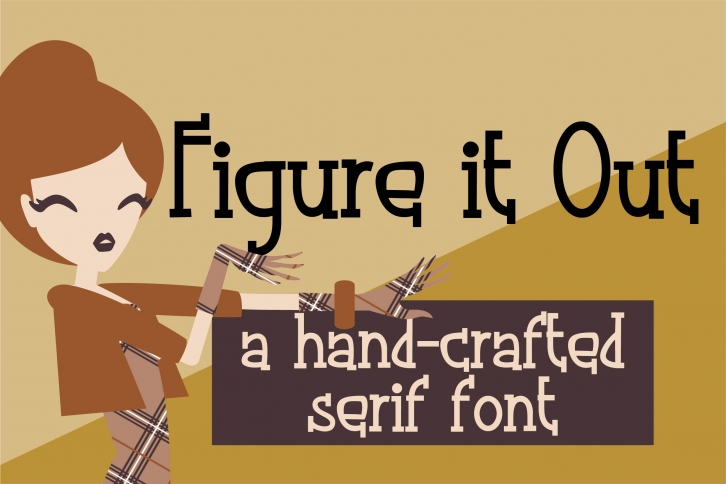
PN Figure It Out is a great font that was designed by Illustration Ink. Imagine the amount of combinations you can create using this font! The archive is 16.68 MB and it was released on January 31, 2020. PN Figure It Out looks beautiful on wedding invitations, greeting cards, logos, posters, labels, t-shirt designs, logos, business cards and is perfect for use in ink or watercolor works, fashion, magazines, packaging and food menus, children's books and more!